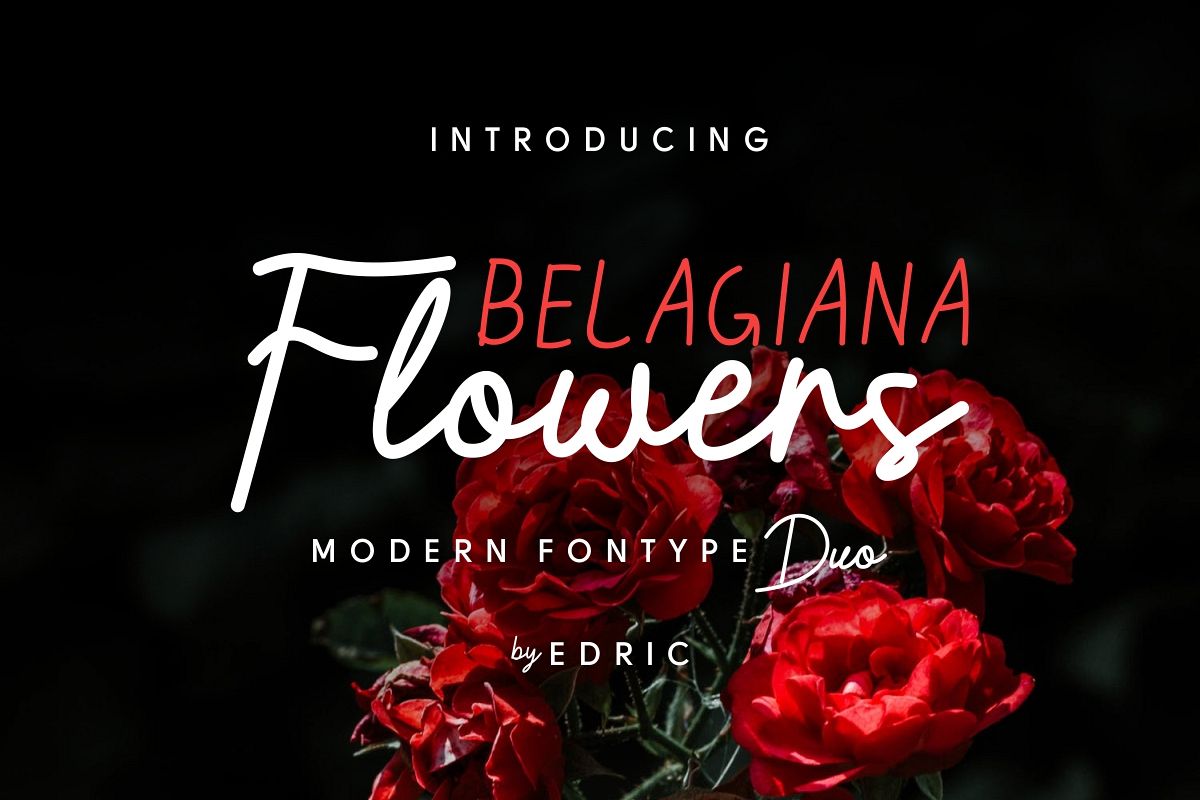
Belagiana Flowers
Belagiana Flowers  !A gorgeous font duo!Belagiana Flowers is a new font duo consist of script and sans look display. It has beautiful characters set, unique ligatures and great pairing. It also support multiple accentsPerfect for many industries and projects : Personal brand, magazine, flyer, wedding, professional, person name, signature, modern, law firm, makeup artist, photography, travel, hotel, fashion, cafe, cake-food menu etcThis font will Work on PC & Mac with Simple installations. Accessible in the Adobe Illustrator, Adobe Photoshop, Adobe InDesign, even work on Microsoft Word. It’s also PUA Encoded Characters – Fully accessible without additional design software. Plus it support multi-languageWhat’s include on package: